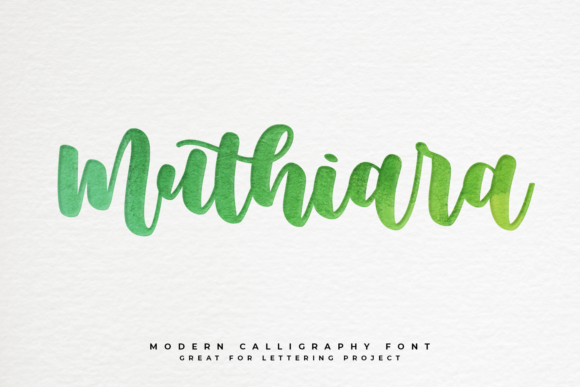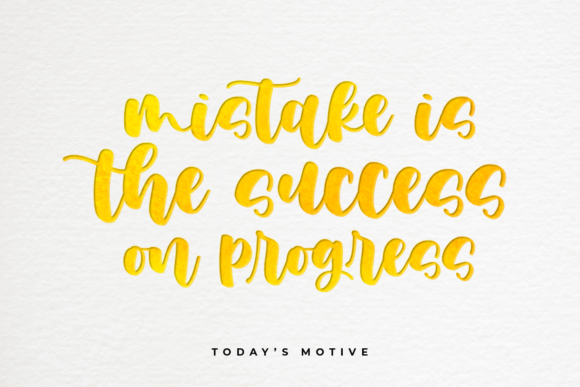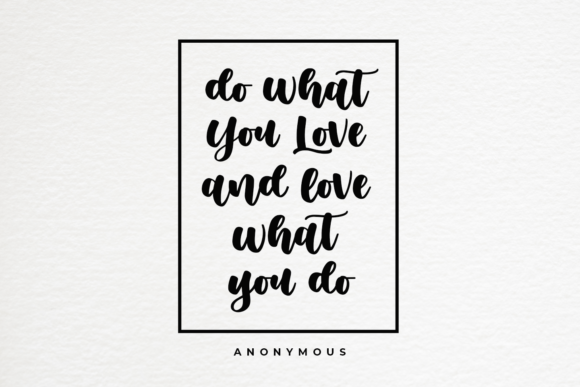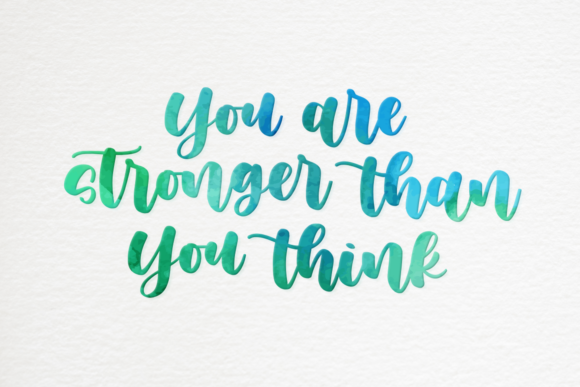
Muthiara Font: A Chic Calligraphy Script for Branding & DIY
About the Muthiara Font
Meet Muthiara Font, a stunning font that brings a touch of elegance and professionalism to any design. Muthiara is a wonderfully timeless script with an authentic twist. It will elevate any DIY project to the highest levels!
Muthiara’s elegant, yet slightly quirky, personality makes it ideal for projects requiring a touch of vintage charm. It shines in headlines, short-form text on invitations, or as a signature element in branding for boutique businesses, cafes, or artisan products. Avoid using it for body text or extended paragraphs; its elaborate forms are best showcased in short, impactful bursts.
Pairing Muthiara effectively depends on the desired mood. For a sophisticated feel, consider pairing it with a clean sans-serif like Lato or a geometric sans-serif like Montserrat. To create a warmer, more vintage aesthetic, pair it with a serif like Playfair Display or a slightly more informal serif like Merriweather.
Muthiara’s overall mood is sophisticated yet approachable, blending timeless elegance with a playful unconventionality. It’s not suitable for UI elements or situations demanding high readability, but for crafting memorable logos or adding a distinctive touch to packaging, it’s exceptionally effective.
Muthiara Font Usage Examples
Muthiara Font Example